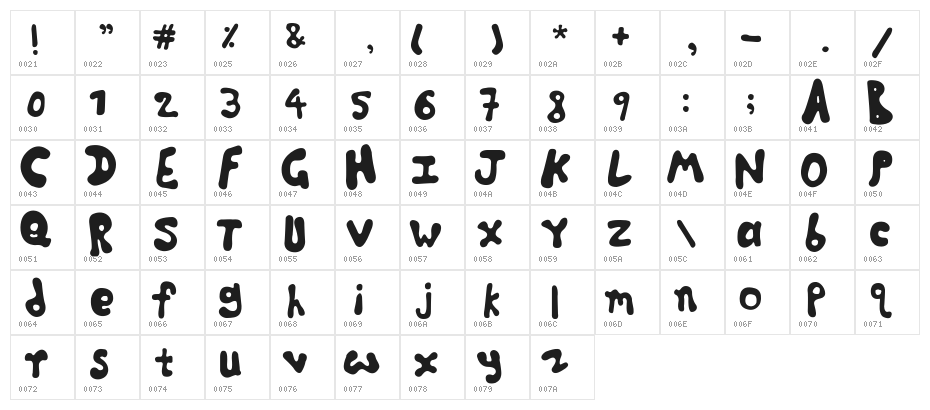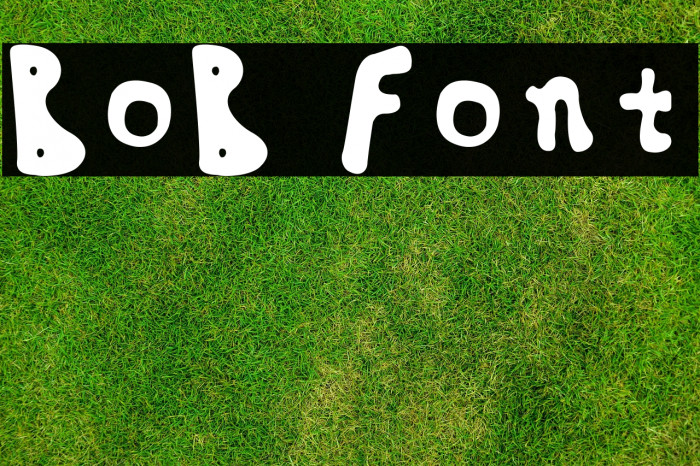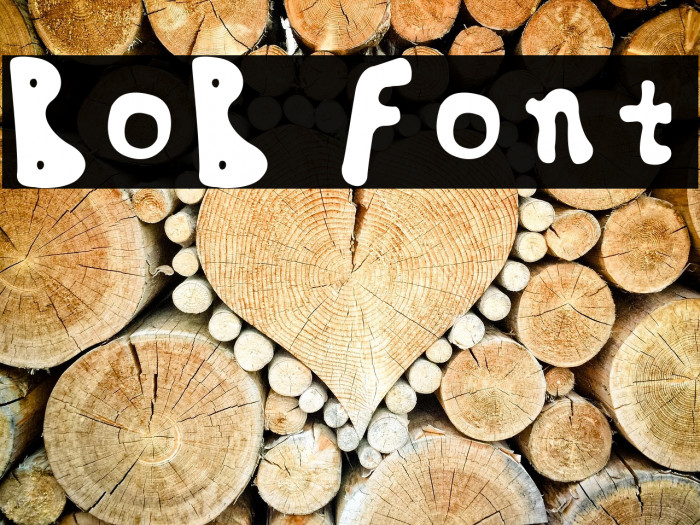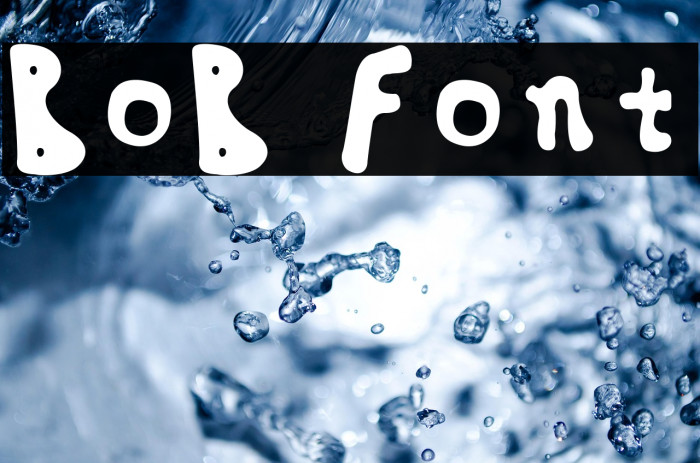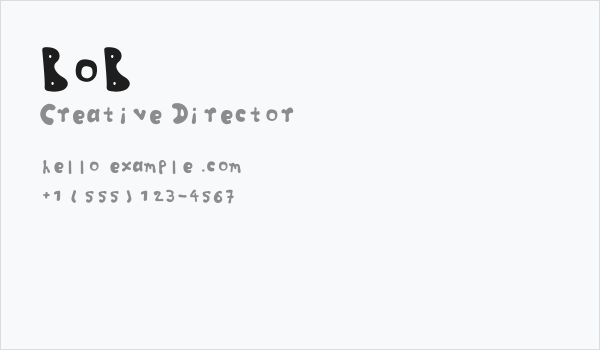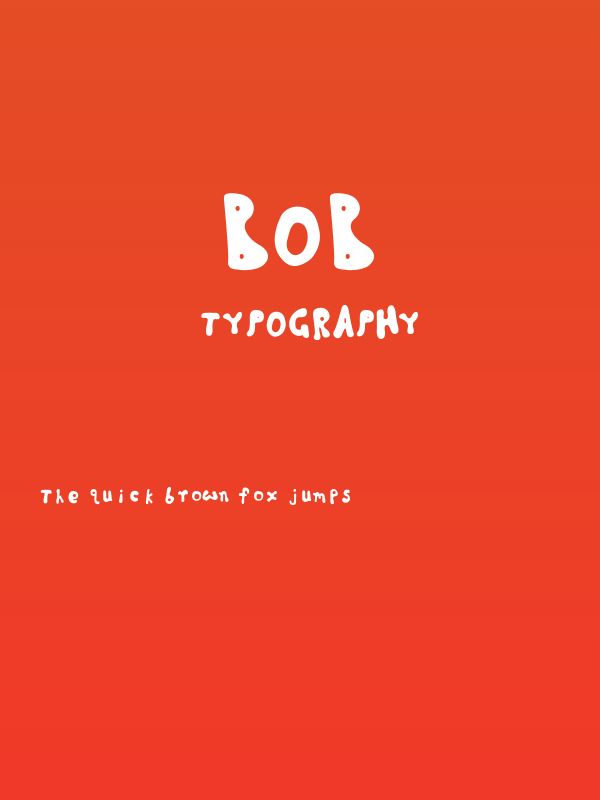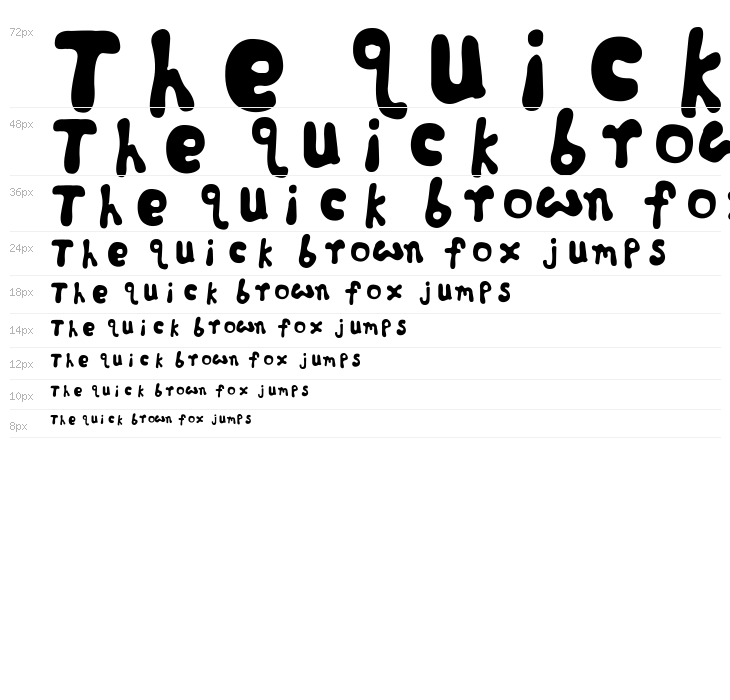
BoB Font
BoB Description
This playful and quirky font features bold, rounded characters with a hand-drawn appearance. Each letter has a unique, slightly irregular shape, adding to its whimsical charm. The font maintains a consistent thickness throughout, giving it a cohesive look. Its informal style makes it ideal for projects that require a fun and approachable feel. The characters are well-spaced, ensuring readability while maintaining their distinctive personality. This font includes a full set of uppercase and lowercase letters, numbers, and a variety of special characters, making it versatile for different design needs.
| Use Case | Logos, Headlines, Posters |
| Proposed Projects | Ideal for children's books, playful branding, greeting cards, and creative posters. |